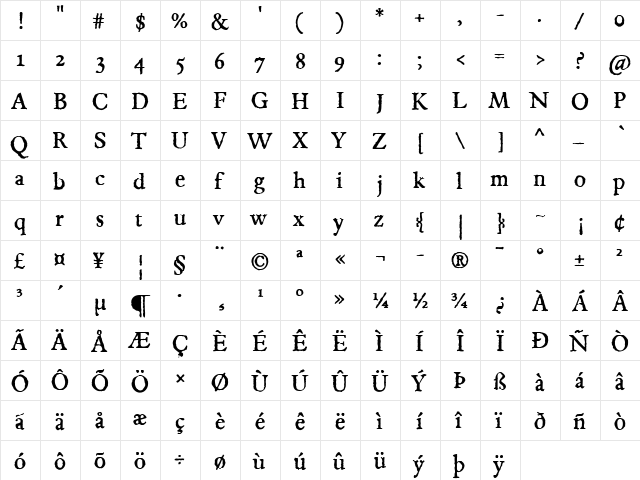
JMH Espinosa Regular
JMH Espinosa is a composed and adaptable typeface that performs quietly and consistently across a wide range of design contexts.